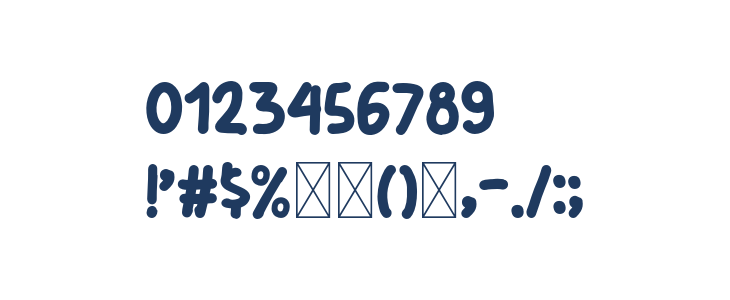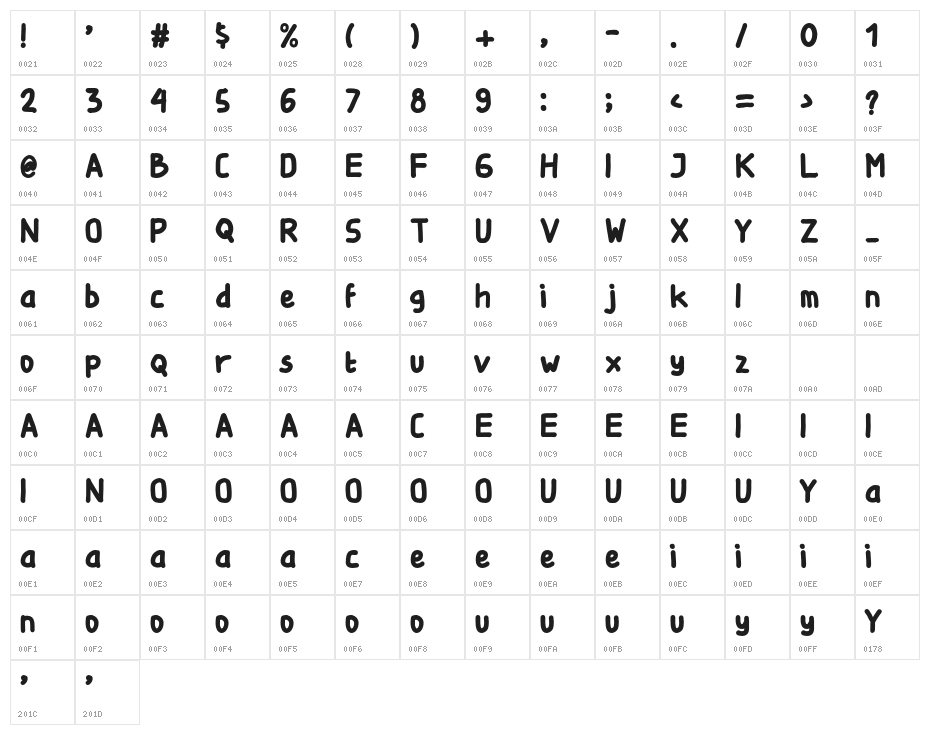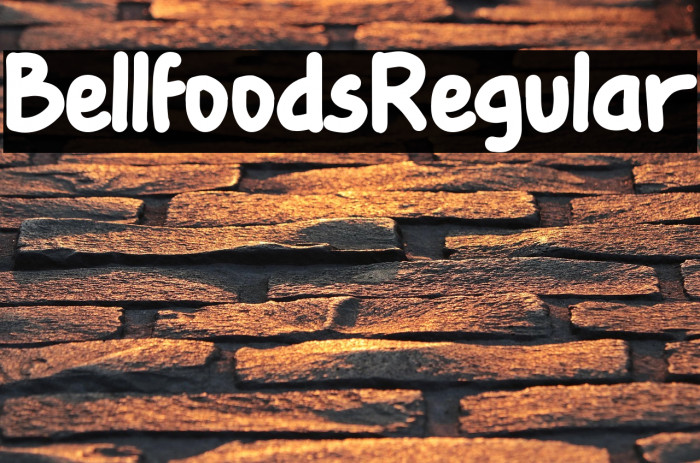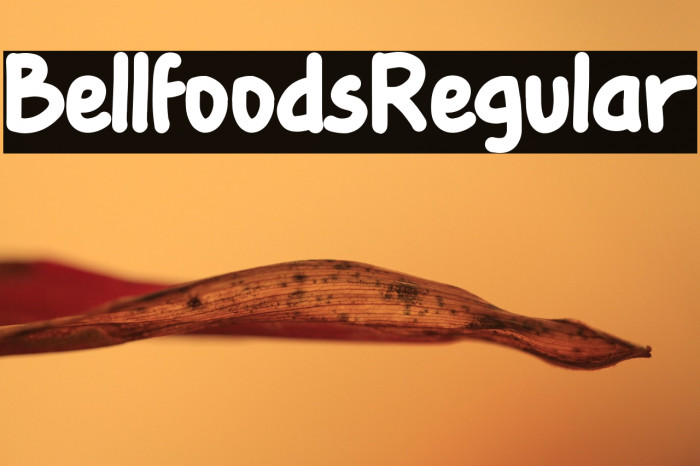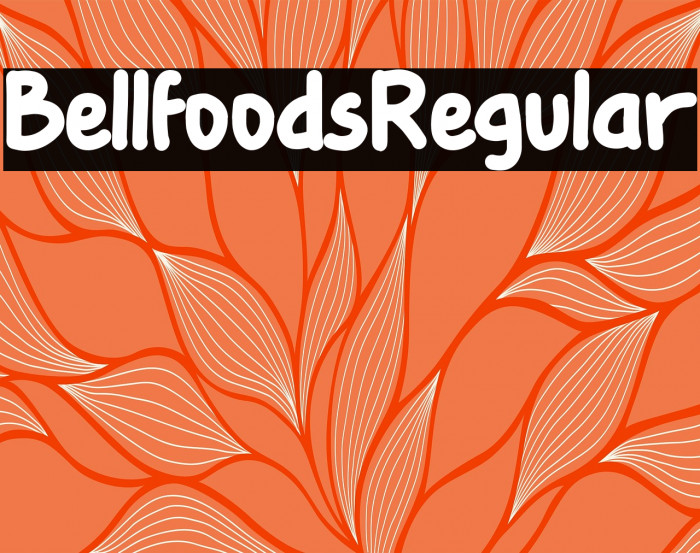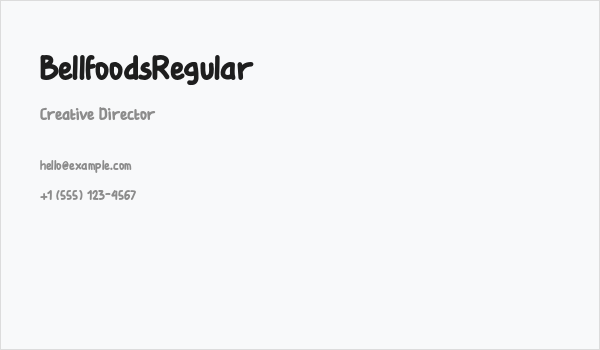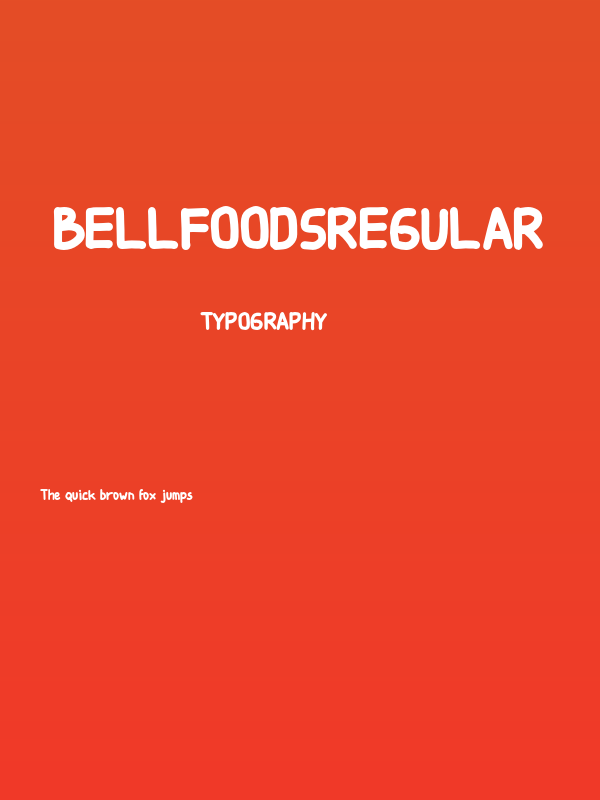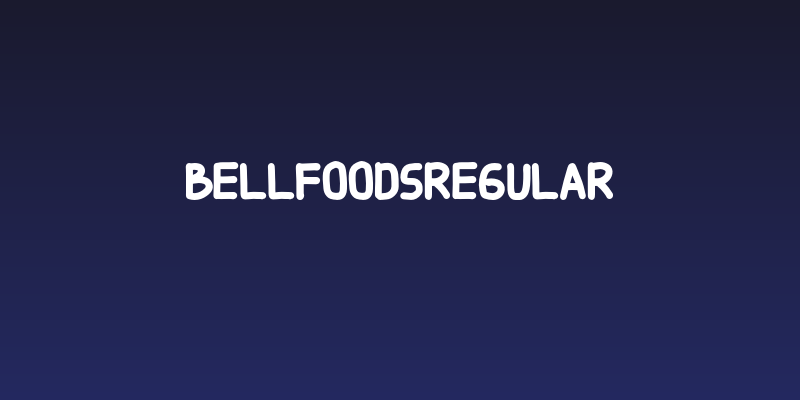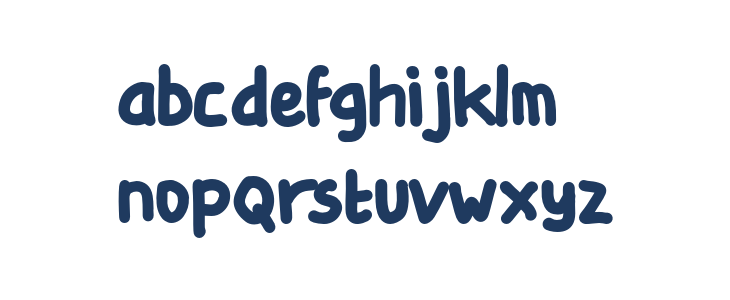
BellfoodsRegular Font
BellfoodsRegular Description
This font features a playful and bold style with rounded edges, giving it a friendly and approachable appearance. The characters are uniformly thick, contributing to a consistent and cohesive look. The uppercase and lowercase letters maintain a similar width, ensuring readability and balance. The numerals are clear and distinct, matching the overall style of the alphabet. Special characters are included, maintaining the same playful aesthetic. This font is versatile, suitable for various design projects that require a fun and engaging typeface.
| Proposed Projects | Ideal for children's books, playful branding, casual invitations, and posters. |